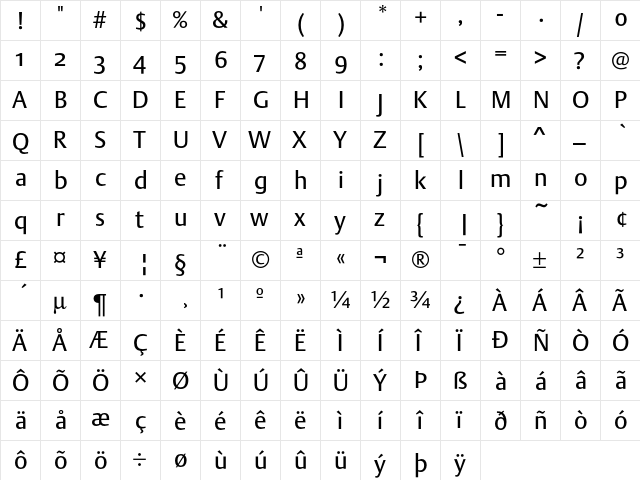
DTLArgoST Regular Font Preview
DTLArgoST Regular
Design Context for DTLArgoST Typeface
DTLArgoST takes a measured approach to typography — its balanced proportions and neutral character make it a reliable workhorse for both digital and print work.